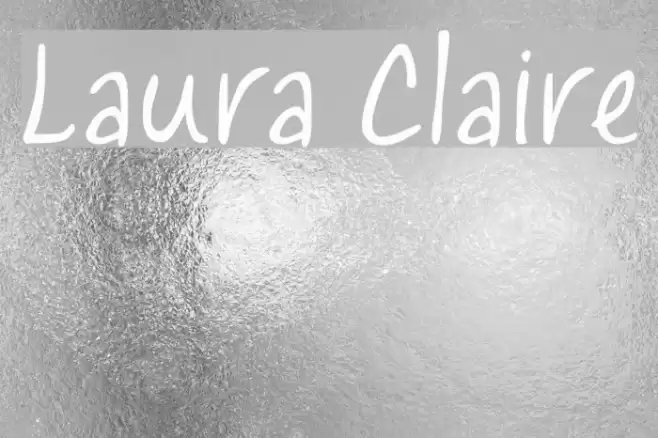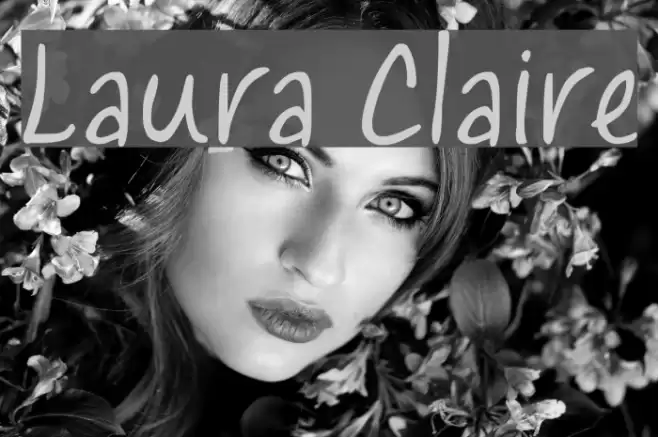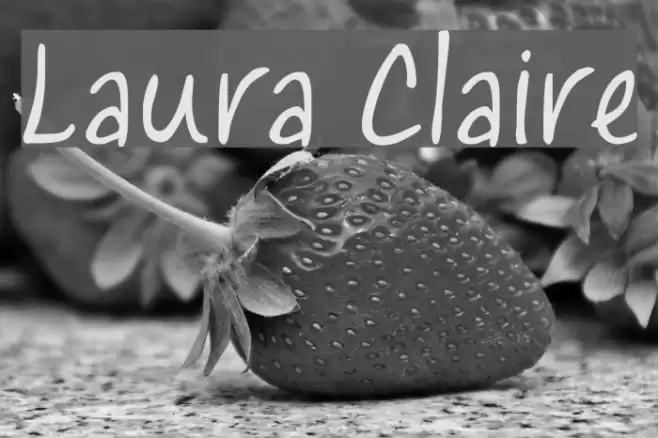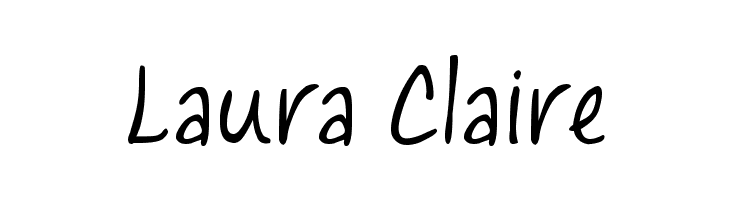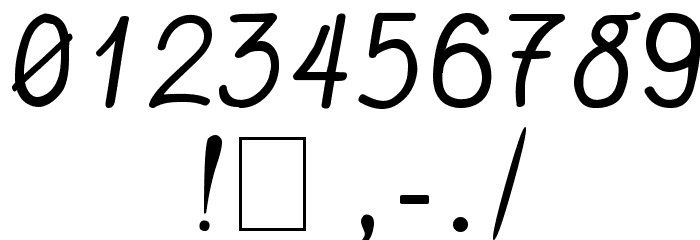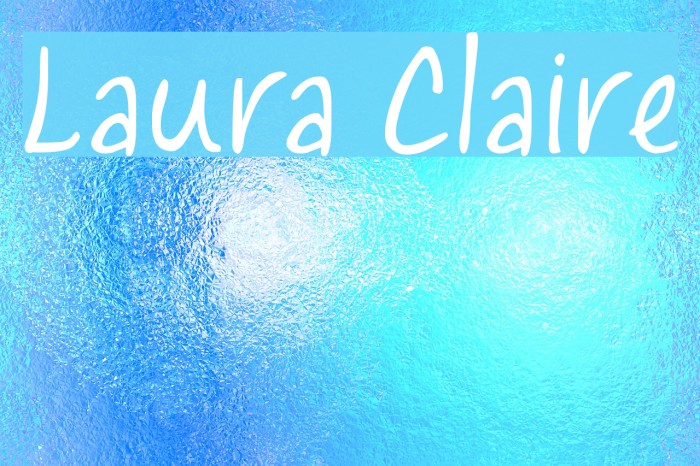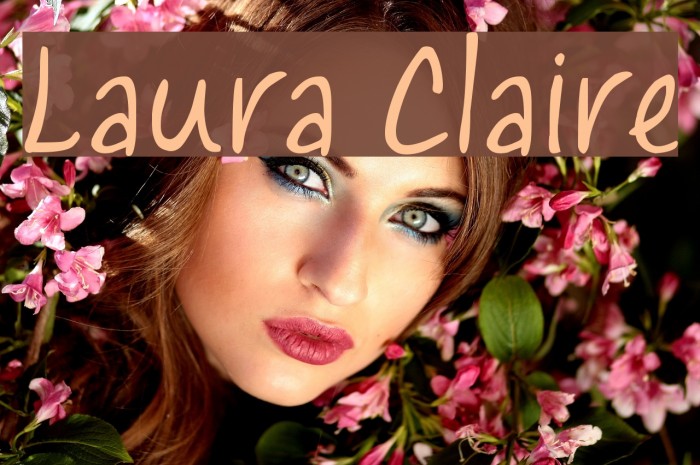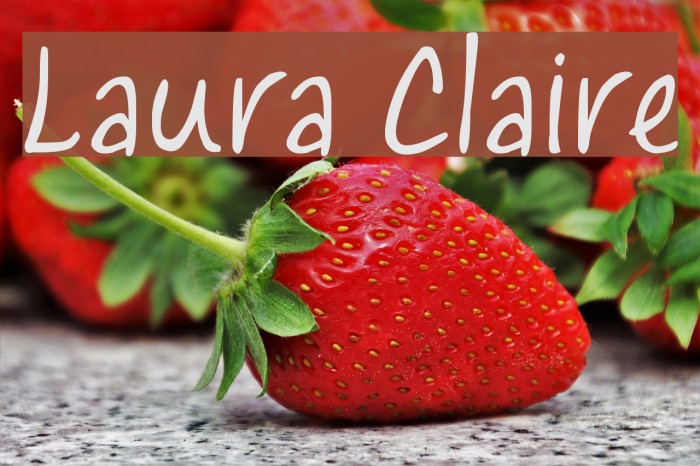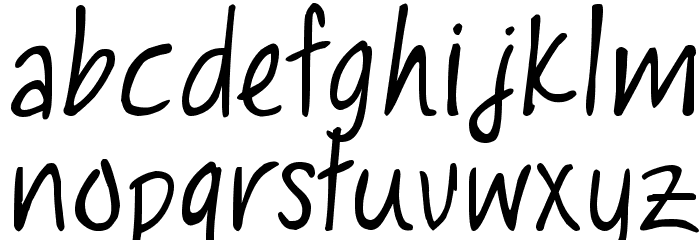
Laura Claire Font
Laura Claire Description
This font features a playful and casual handwritten style, characterized by its smooth, flowing lines and slightly irregular letterforms. The uppercase letters are bold and confident, while the lowercase letters maintain a consistent rhythm with a touch of whimsy. The numerals are clear and easy to read, matching the overall informal aesthetic. Special characters are integrated seamlessly, adding to the font's versatility. The strokes are moderately thick, providing good legibility without sacrificing the handwritten charm. This font exudes a friendly and approachable vibe, making it suitable for a variety of creative projects.
A playful, casual handwritten font with smooth, flowing lines and a friendly vibe from Handwritten fonts.
- Proposed Projects: Ideal for greeting cards, invitations, personal branding, and social media graphics.
- Overall Style: Casual
- Use Case: Headlines, Logos, Informal Text